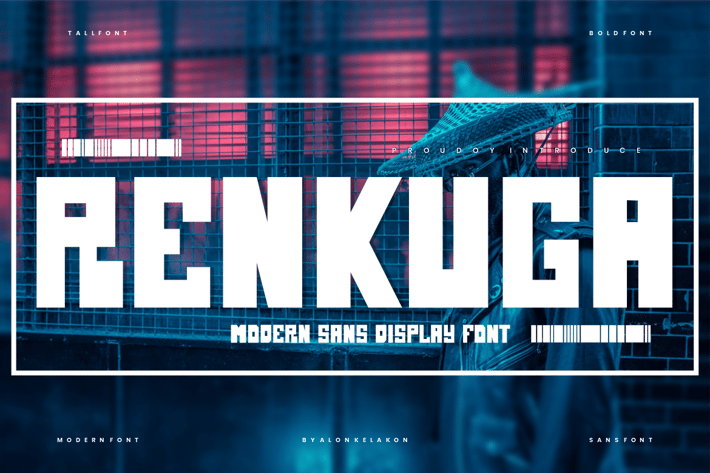
Renkuga - Heavy Bold Font
Renkuga Font is unique . Ready to use for your design like labeling, movie sceen, poster, movie title, gigs, album covers, logos, and much more.